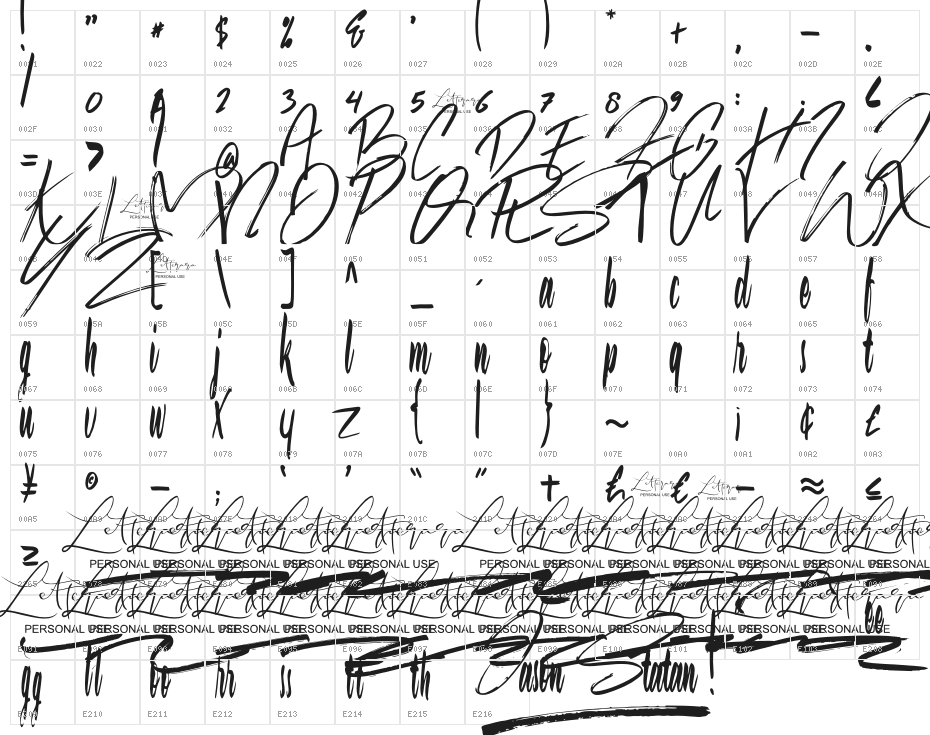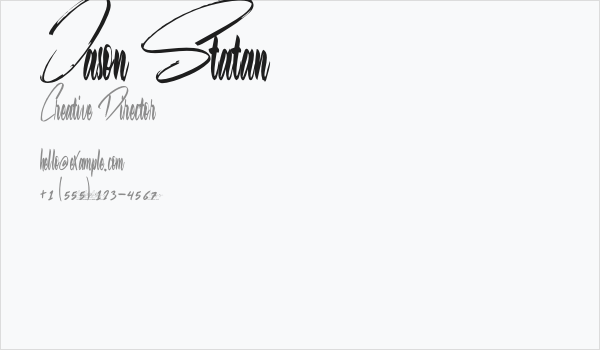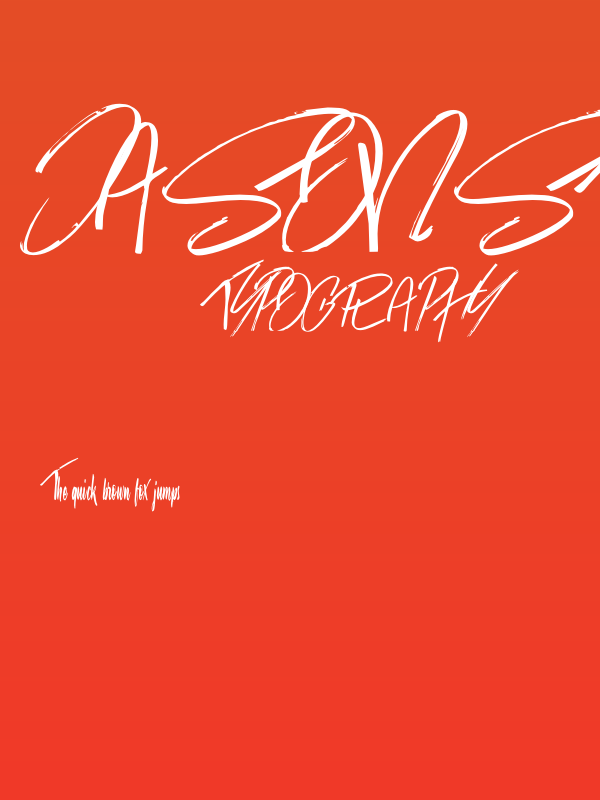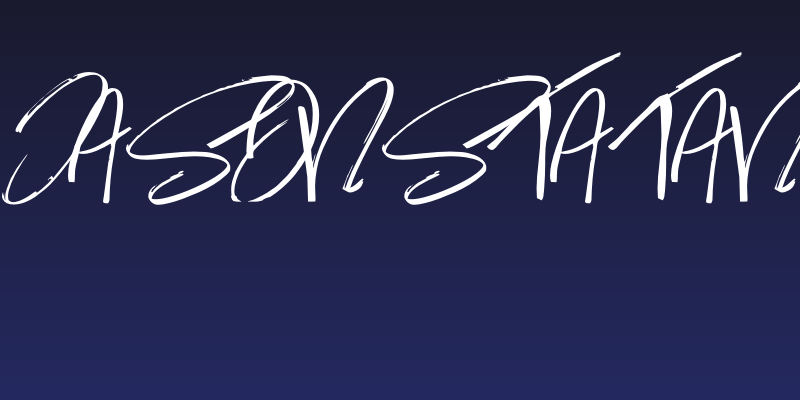
Jason Statan Font
Jason Statan Description
This font features a dynamic and expressive handwritten style, characterized by its fluid, cursive strokes and a sense of motion. The uppercase letters are elongated and slightly slanted, giving a sense of elegance and speed. The lowercase letters maintain the same fluidity, with some letters connecting seamlessly. The numbers and special characters follow the same design principles, ensuring consistency throughout. This font's unique style is both artistic and modern, making it suitable for creative projects that require a personal touch.
| Overall Style | Modern, Artistic |
| Use Case | Logos, Invitations, Creative projects |
| Proposed Projects | Ideal for branding, invitations, greeting cards, and artistic projects that require a personal, creative touch. |